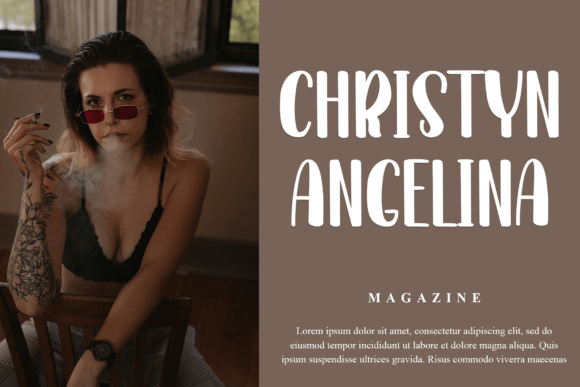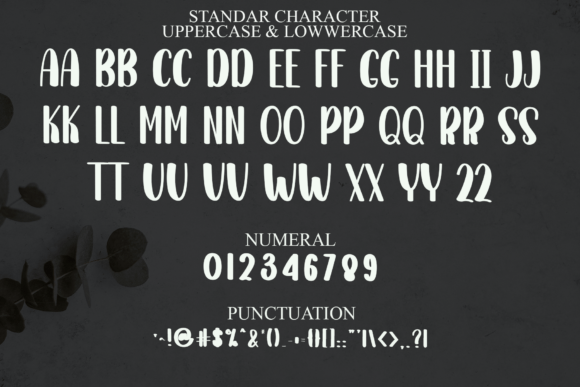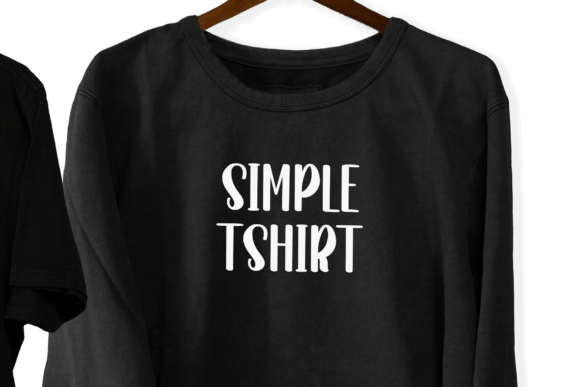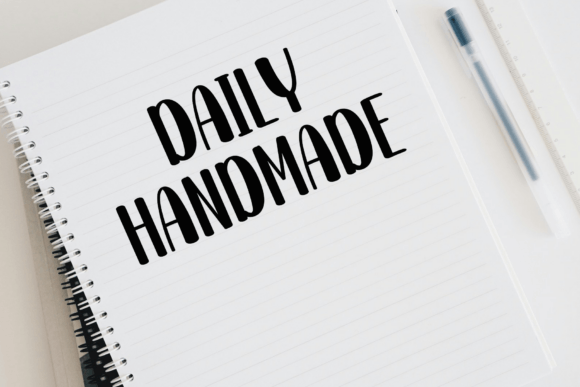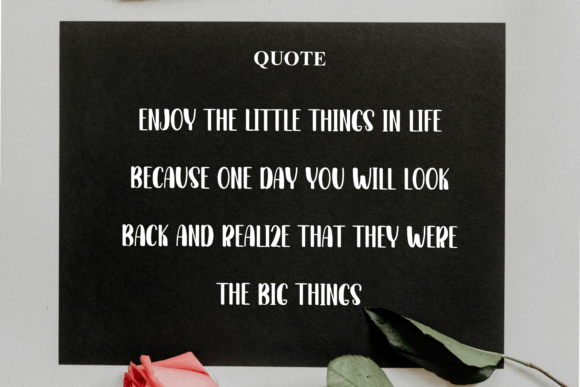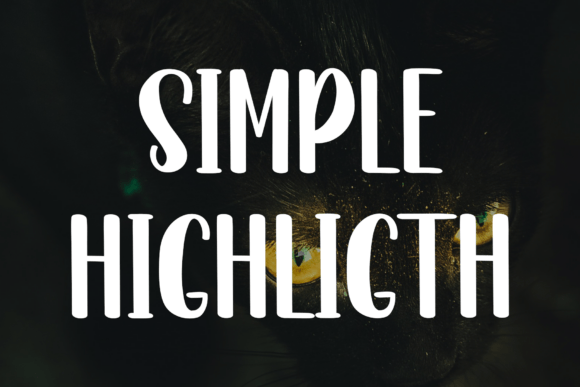
Introduction to Minimalist Highlight Font
As designers, we’ve all been there – staring at a blank page, struggling to find the perfect font to bring our creative vision to life. But what if I told you that the solution is simpler than you think? Sometimes, all it takes is a clean and modern font to elevate your design and make it truly stand out. Enter the Minimalist Highlight Font, a game-changing design resource that’s about to become your new best friend.
With its tall, bold letters and transparent background, the Minimalist Highlight Font is the perfect addition to any high-quality design project. Whether you’re working on a logo, a brochure, or a website, this font adds a stylish touch without being distracting. And the best part? It’s completely free to download, making it an invaluable resource for designers on a budget.
Key Features of Minimalist Highlight Font
- High-quality font with a minimalist design, ideal for highlighting text in presentations, documents, and websites.
- Transparent background, allowing for easy layering and composition in design applications.
- Unique, clean, and modern design, perfect for adding a touch of sophistication to any creative project.
Honest Review: Minimalist Highlight Font
I recently stumbled upon the Minimalist Highlight Font, and I must say it’s a fantastic addition to my design resource library. The free download has been a game-changer for my creative projects.
What works well: ✨ The high-quality design is modern, clean, and easy to read. The transparent background makes it versatile for use on any background. I’ve used it for both digital and print projects, and it looks great in both formats.
The font is perfect for highlighting important text or creating a visual hierarchy in your design. The subtle texture adds depth without overwhelming the reader. It’s a great choice for anyone looking for a simple yet effective font.
However, I do have one criticism: ⚠️ The font family is limited to a single weight, which can make it less versatile for projects that require multiple font weights. Additionally, the font may not be suitable for projects that require a more dramatic or attention-grabbing font.
Overall, I’m impressed with the Minimalist Highlight Font. It’s a high-quality design resource that’s perfect for designers who value simplicity and subtlety. I highly recommend it for any creative project.
- Simple yet effective
The Minimalist Highlight Font is ideal for a variety of creative projects, including graphics, presentations, and documents. Its clean design and transparent background make it perfect for creating visually appealing designs that stand out from the crowd.